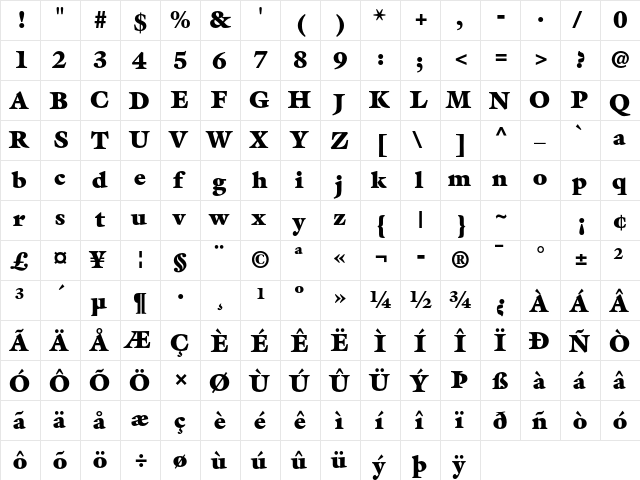
ITC Galliard Std Ultra
| Designer | Matthew Carter |
Design Context for ITC Galliard Std Typeface
ITC Galliard Std offers clean, dependable letterforms without strong stylistic allegiance, making it a practical choice for designers who need flexibility.